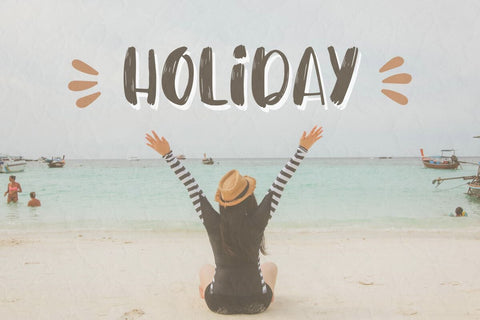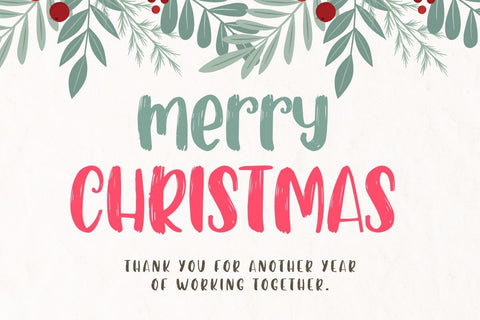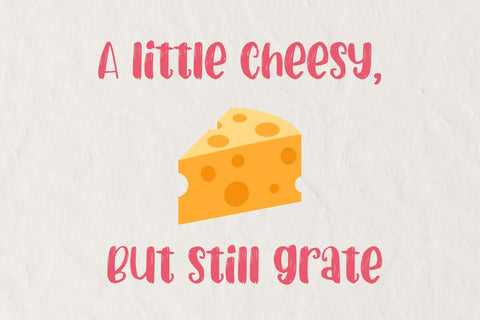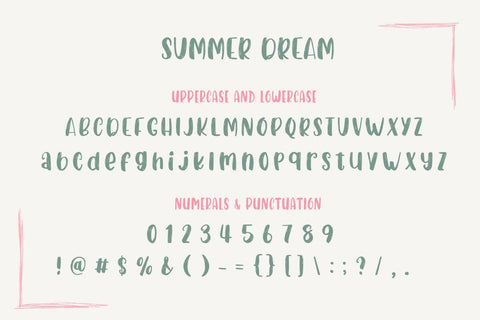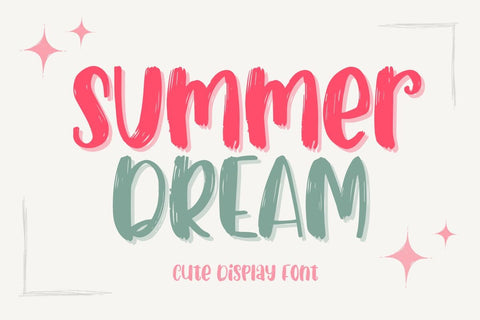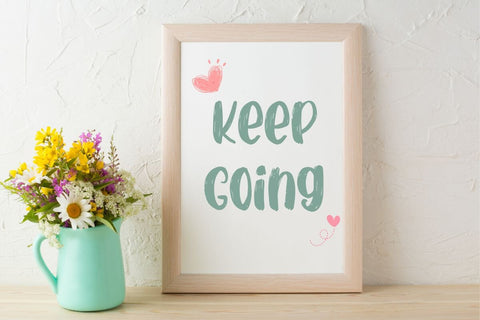
Summer Dream Font - Display Font
Summer Dream is cute display font font that will help you enjoy and have fun with your designs. Perfect for creating a wide variety of new designs to match products such as banners, content, mugs, cards, shirts, stationery, social media posts, and more!